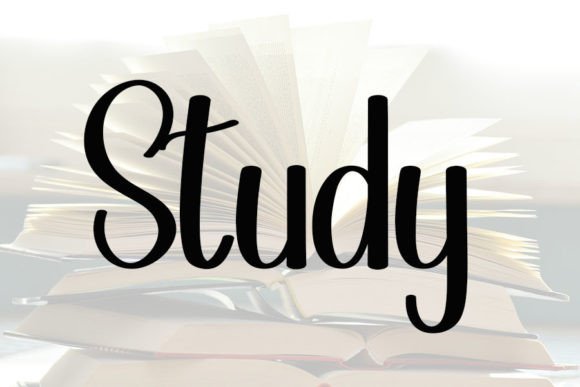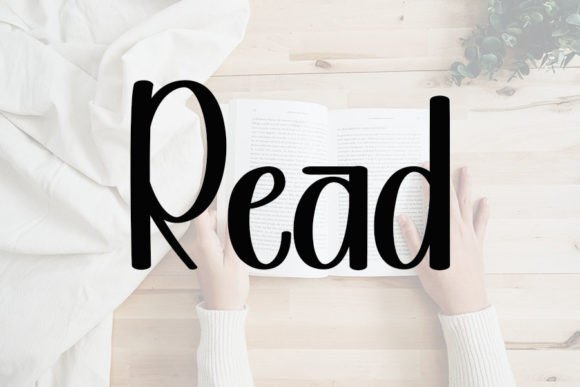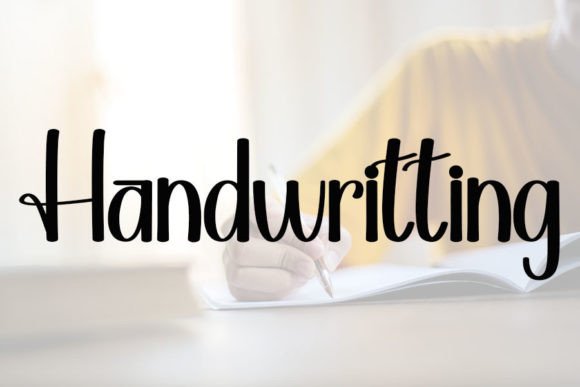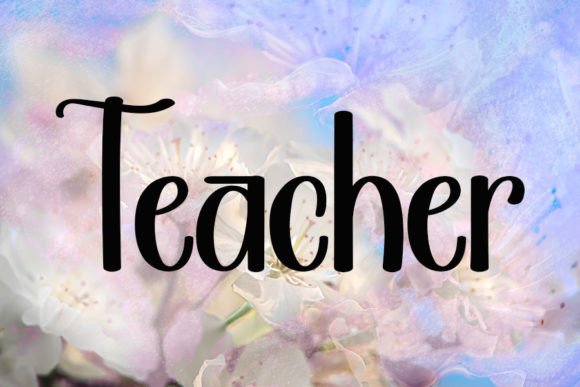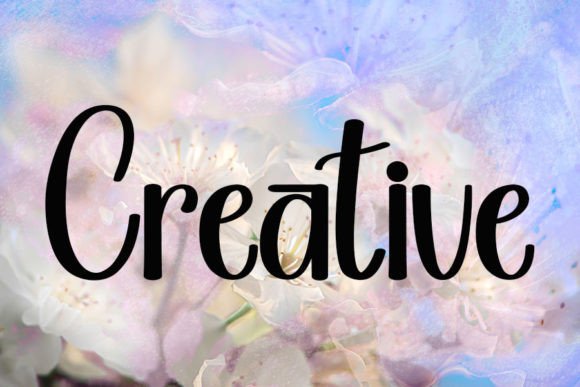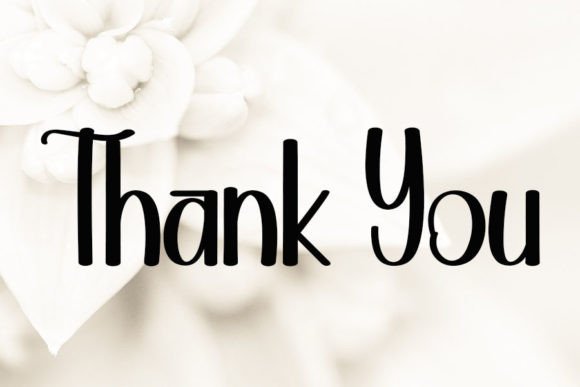
Earnest Font: Elevate Your Designs with Elegance and Timeless Style
Are you on the hunt for a font that exudes elegance, sophistication, and a touch of timeless charm? Look no further than the Earnest Font, a beautiful handwritten typeface that is sure to capture your heart. With its incredibly distinct and neat style, Earnest is the perfect addition to your design arsenal, allowing you to create spectacular designs that stand out from the crowd.
The Essence of Earnest Font
Earnest is a meticulously crafted handwritten font that boasts an elegant touch, making it an ideal choice for designers and crafters seeking to infuse their projects with a sense of refinement and luxury. Its unique and classic style ensures that your designs not only look stunning but also convey a sense of sophistication and poise.
Key Features of Earnest Font
- Neat and Beautiful Handwritten Style: Earnest’s clean and beautiful handwritten style makes it perfect for a wide range of design projects, from branding and advertising to packaging and editorial design.
- Elegant Touch: The font’s elegant touch adds a level of sophistication to your designs, making them perfect for high-end clients or special projects.
- Incredibly Distinct: Earnest’s unique style ensures that your designs stand out from the crowd, making it an excellent choice for designers looking to create something truly memorable.
- Timeless Style: Unlike trendy fonts that quickly go out of style, Earnest’s classic design ensures that your projects will remain stylish and relevant for years to come.
Earnest Font is versatile and can be used for a variety of design projects, including:
- Branding and Logo Design: Create a lasting impression with Earnest’s elegant and sophisticated style, perfect for luxury brands, startups, and small businesses.
- Advertising and Marketing Materials: Use Earnest to create eye-catching ads, brochures, and flyers that showcase your brand’s personality and style.
- Packaging Design: Add a touch of elegance to your product packaging with Earnest, making it perfect for high-end products, cosmetics, and food packaging.
- Editorial Design: Use Earnest to create stunning editorial designs, including magazines, newspapers, and books, that showcase your writing and storytelling skills.
Tips for Using Earnest Font Effectively
To get the most out of Earnest Font, here are some tips to keep in mind:
- Pair with Other Fonts: Experiment with pairing Earnest with other fonts to create a unique and visually appealing design.
- Use for Headings and Titles: Earnest is perfect for headings and titles, so use it to create a lasting impression and draw attention to your content.
In conclusion, Earnest Font is a beautiful and elegant handwritten typeface that is sure to elevate your designs to the next level. With its incredibly distinct and timeless style, Earnest is perfect for designers and crafters seeking to create spectacular designs that showcase their creativity and style. So why wait? Fall in love with Earnest and start creating stunning designs today!